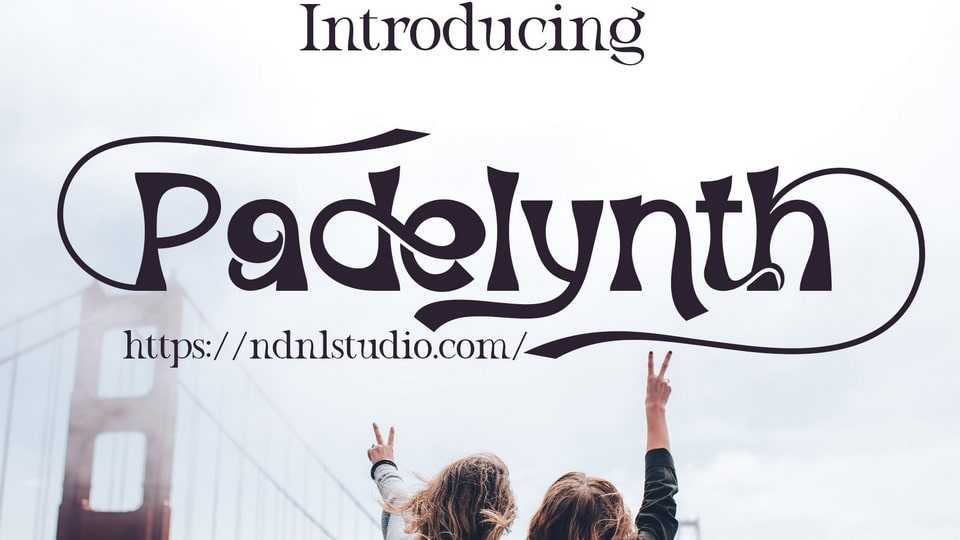
Download Padelynth font, a bold and artistic serif typeface crafted to make every word feel expressive and unforgettable with its unique curves, elegant serifs, and playful handcrafted details.
Designer: NDNL Studio